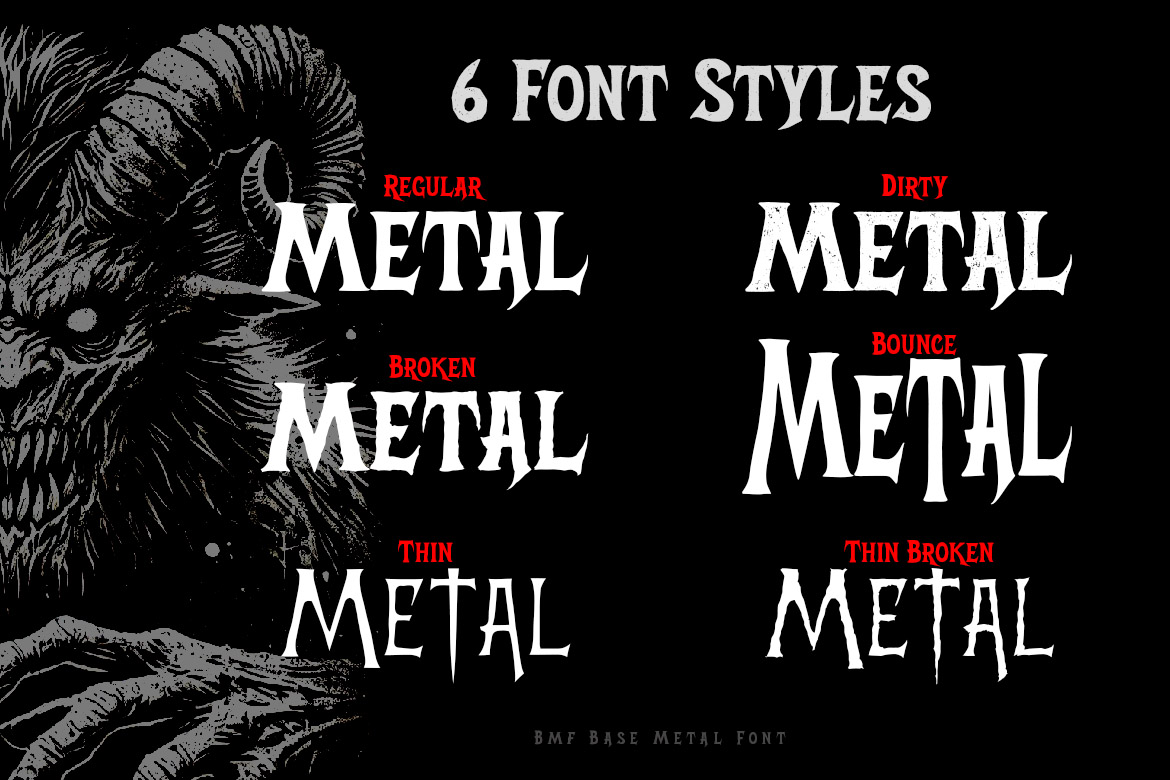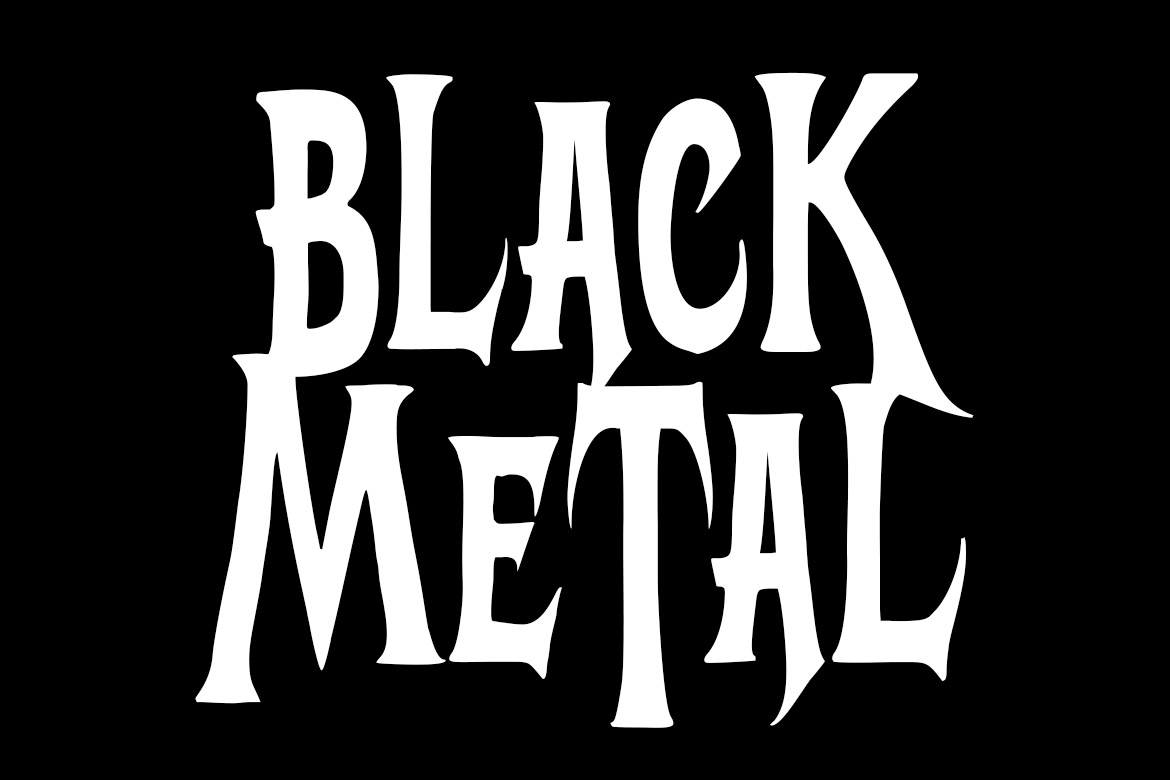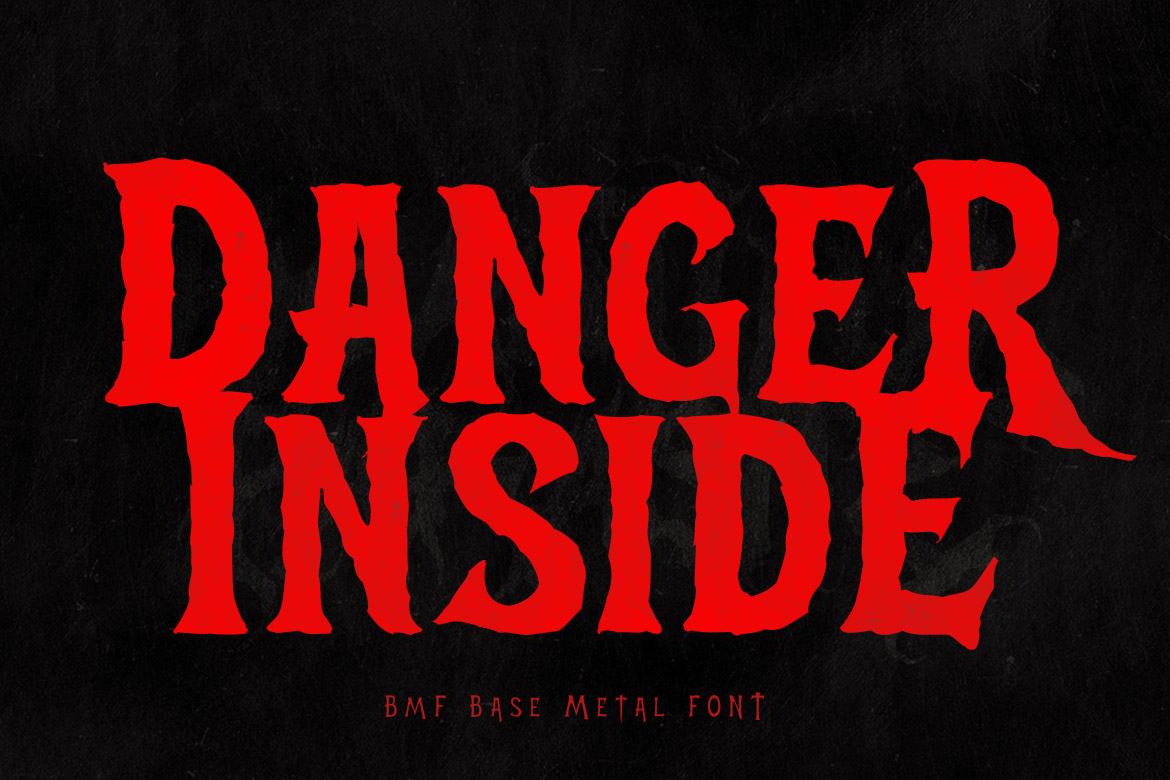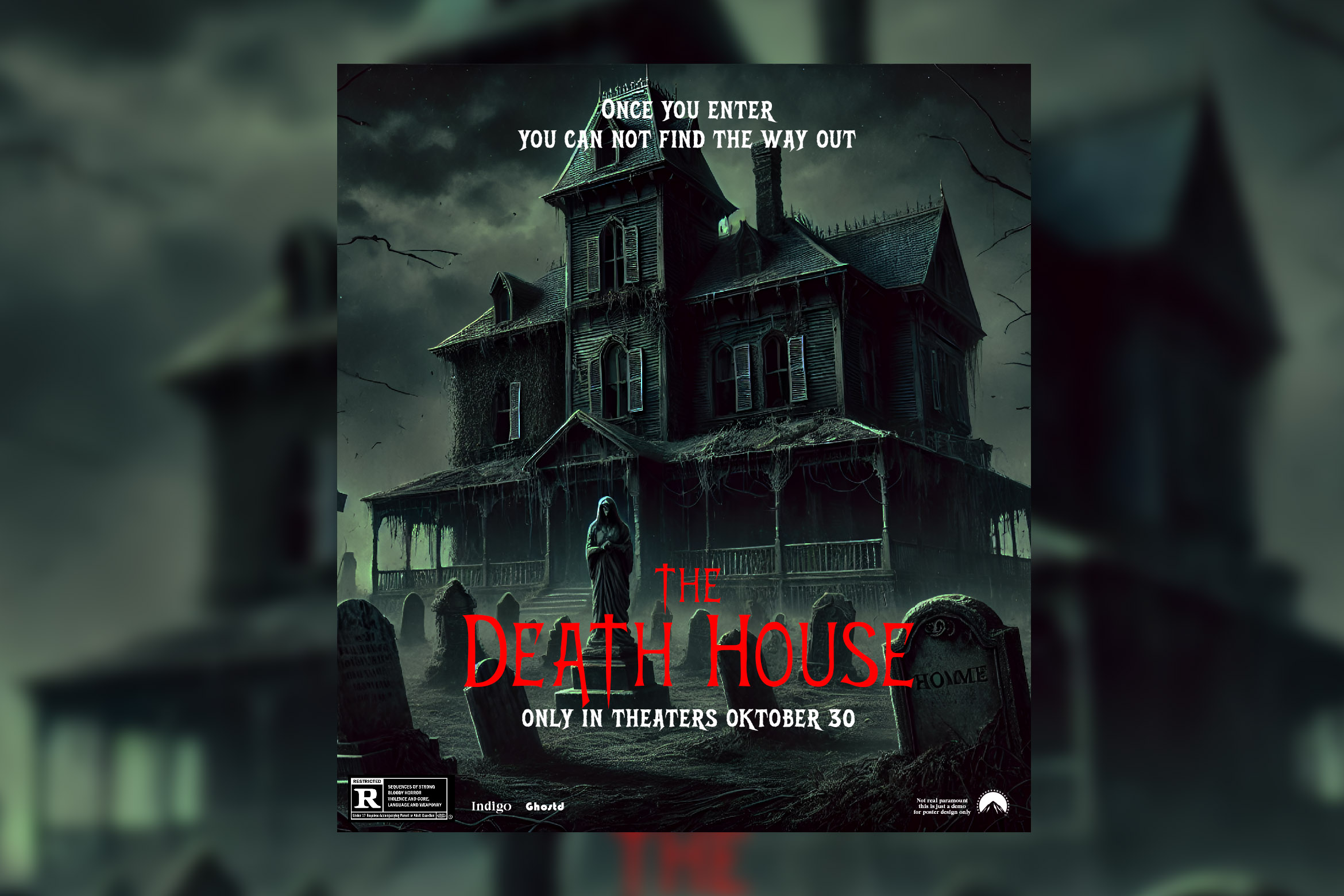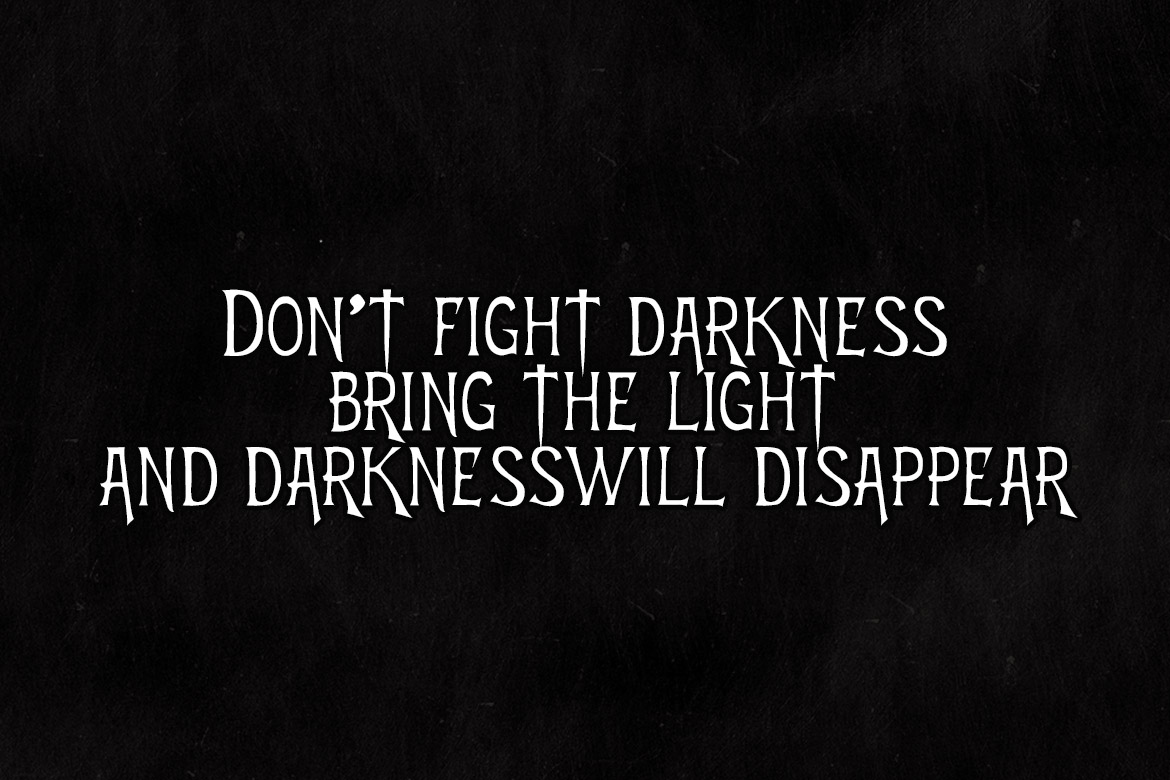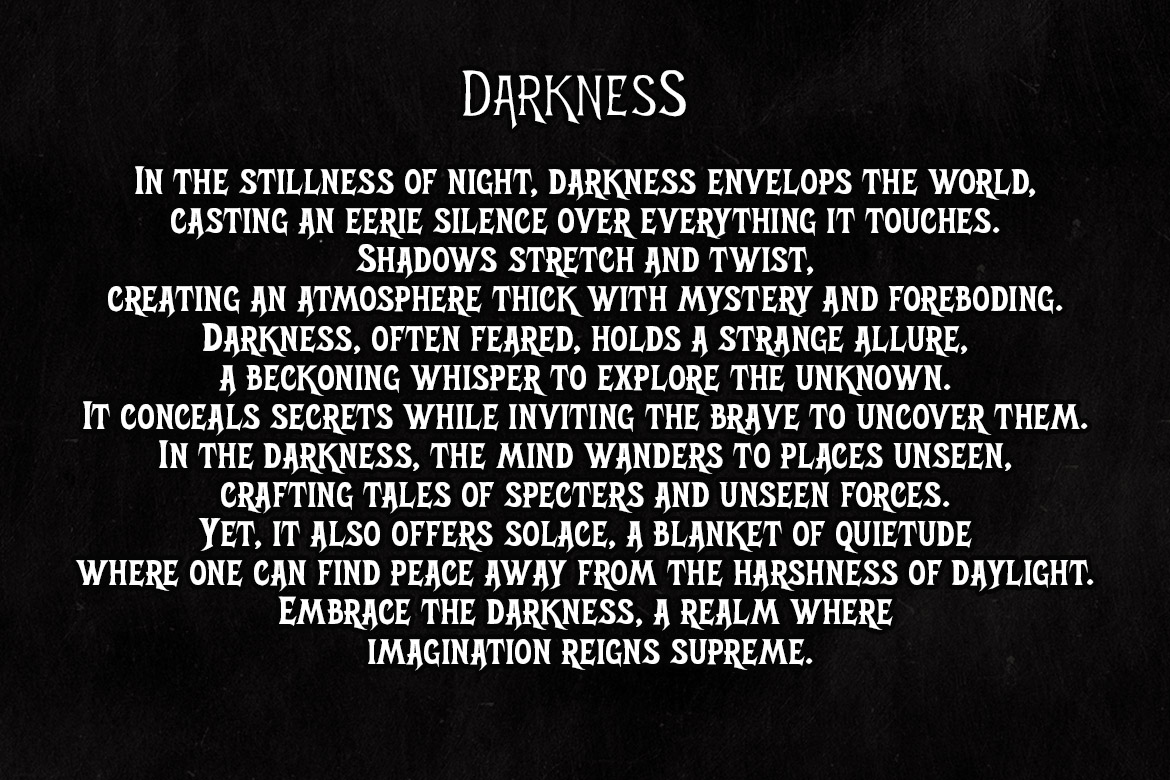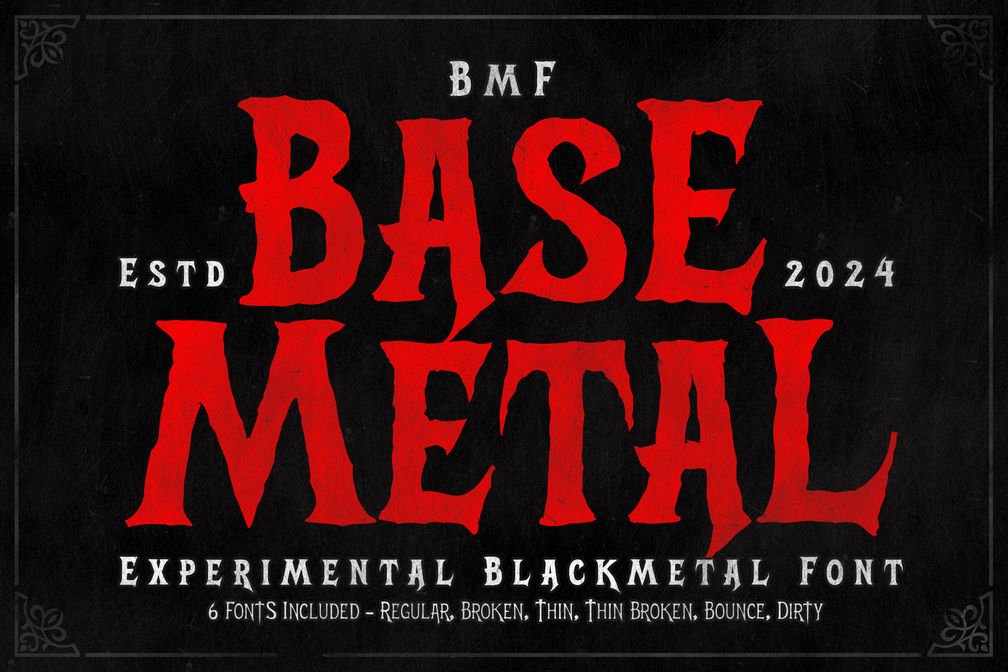
Introducing BMF Base Metal Font – a versatile and experimental black metal font that will elevate your design projects to new heights. This font family includes six distinct styles: Regular, Broken, Thin, Thin Broken, Bounce, and Dirty. Each style is meticulously crafted to bring a unique edge and personality to your creations.
Perfect For:
- Movie Posters: Create striking and unforgettable visuals that captivate audiences.
- Logos: Craft distinctive and memorable brand identities that stand out.
- Magazines: Enhance your editorial designs with bold and edgy typography.
- Music Bands: Design iconic band logos and album covers that resonate with your sound.
- Merchandise: Produce eye-catching merchandise that fans will love to wear and showcase.
Key Features:
- Six Unique Styles: Adaptable to various design needs and preferences.
- High-Quality Design: Ensures sharp and clean lines, even in large formats.
- Versatility: Perfect for both digital and print projects.
- Authentic Black Metal Aesthetic: Embodies the raw and gritty essence of black metal.